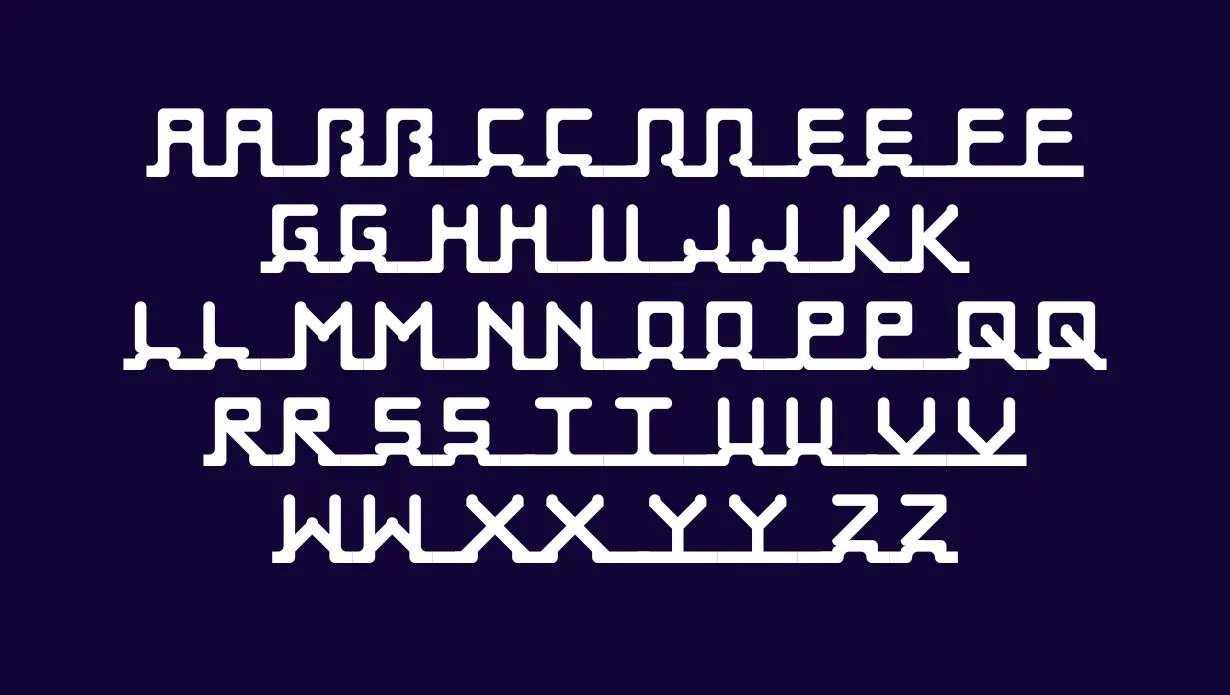
Neon Tubes Light Font is a bold and futuristic typeface frequently selected for projects associated with technology, nightlife, and modern design.
Its luminous and glowing letterforms add a sense of innovation and energy to your designs.
Neon Tubes Light Font Family
| Name | Neon Tubes Light Font |
| Designer | GraphicUX |